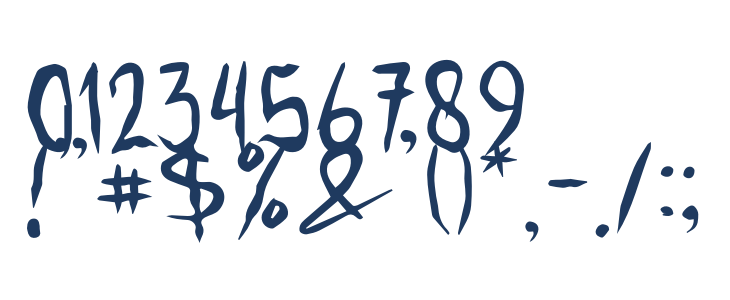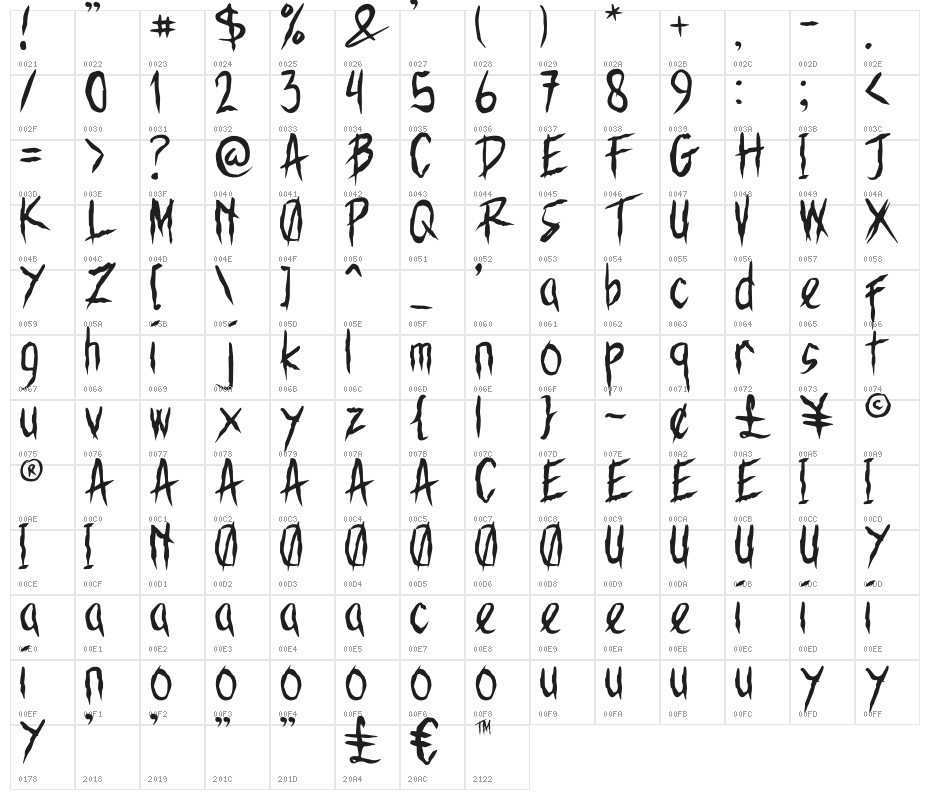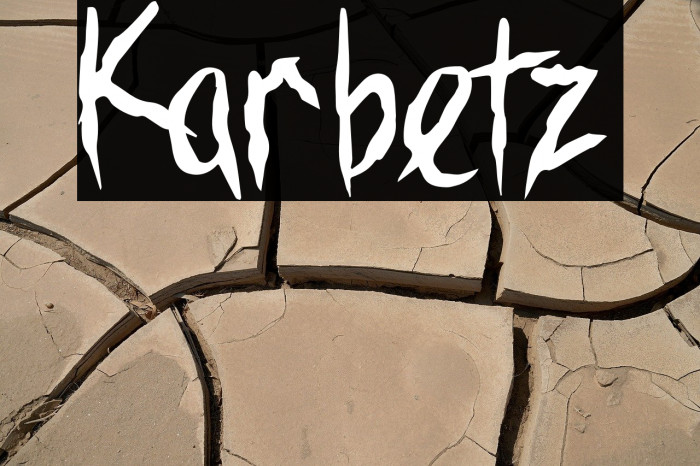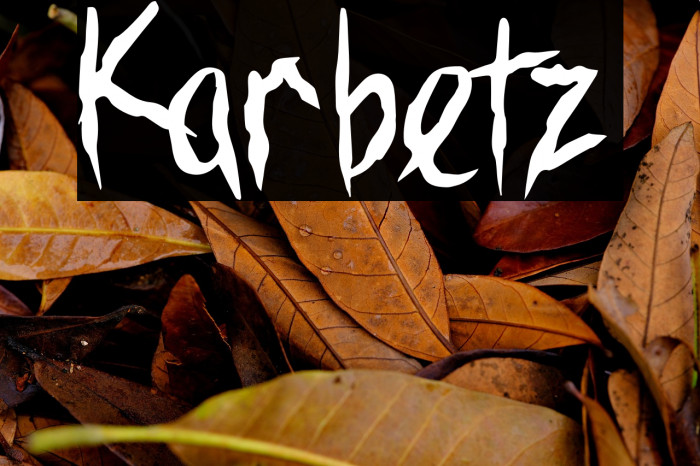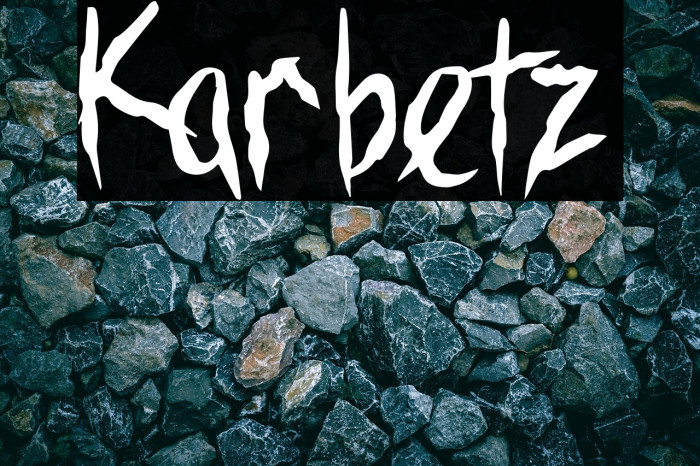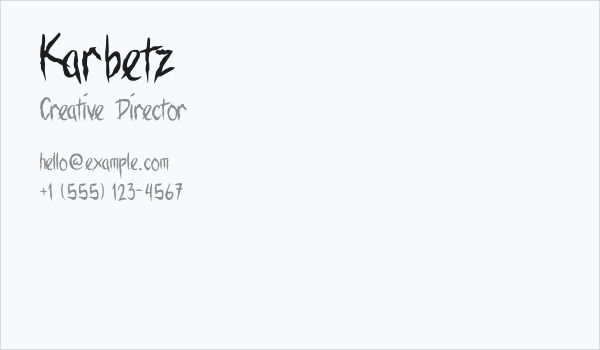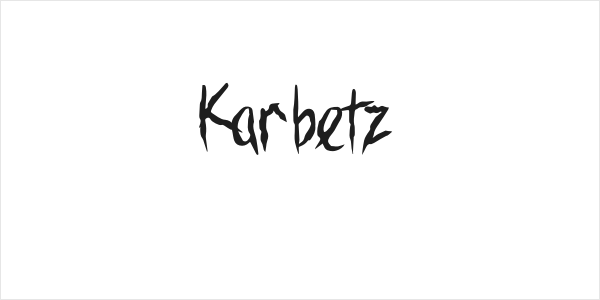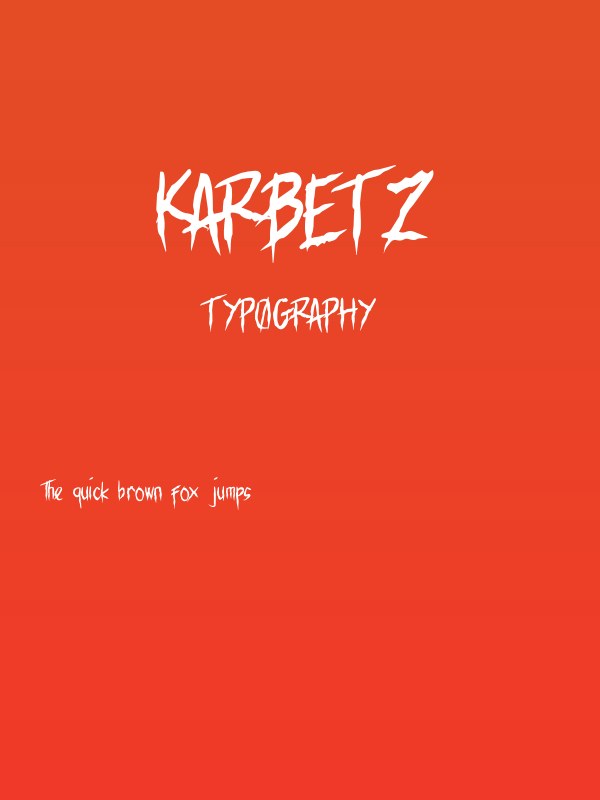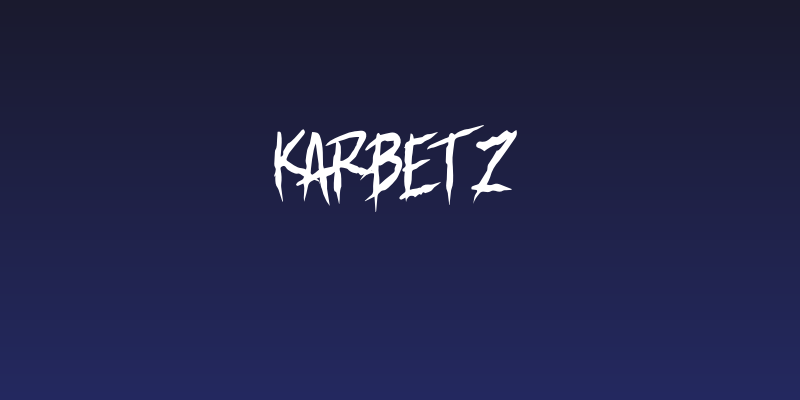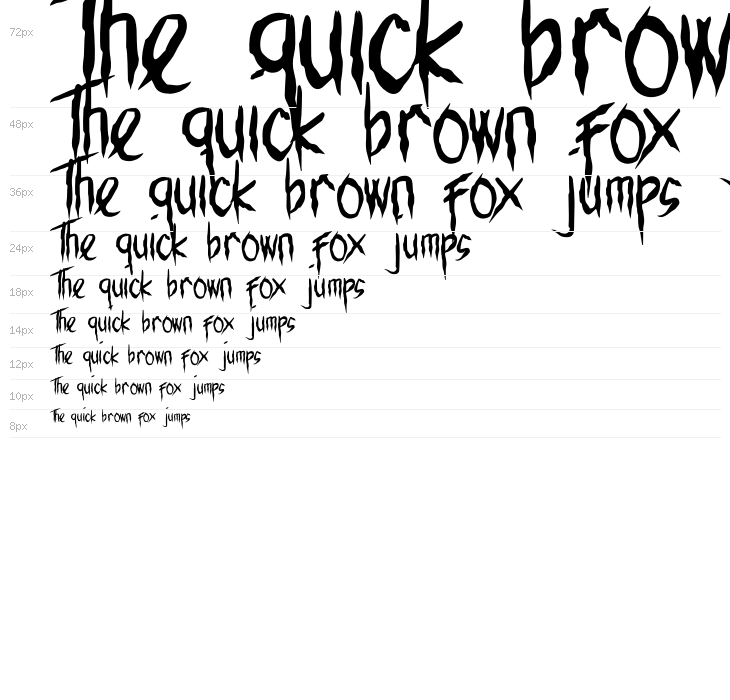
Karbetz Font
Karbetz Description
This font features a jagged, edgy design that evokes a sense of raw energy and intensity. The characters are irregular and sharp, with a hand-drawn appearance that suggests a rebellious or alternative style. The uppercase and lowercase letters maintain a consistent aesthetic, with exaggerated spikes and uneven lines that create a dynamic visual impact. Numbers and special characters follow the same design principles, enhancing the font's cohesive look. This font is ideal for projects that require a bold, unconventional statement, such as music album covers, posters, or branding for edgy products.
| Proposed Projects | Ideal for music album covers, posters, or edgy branding. |